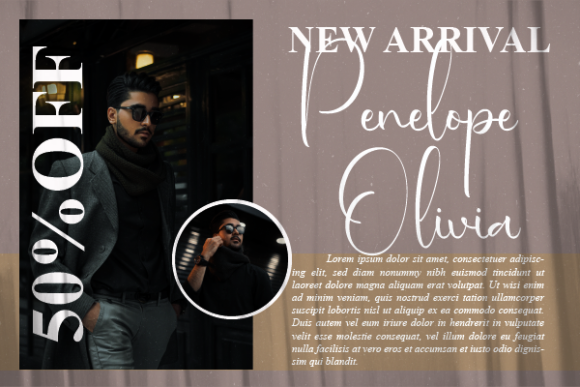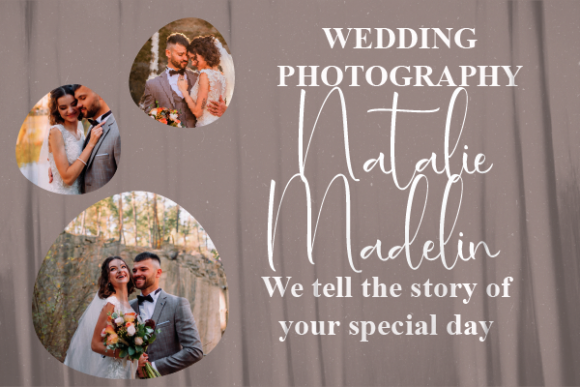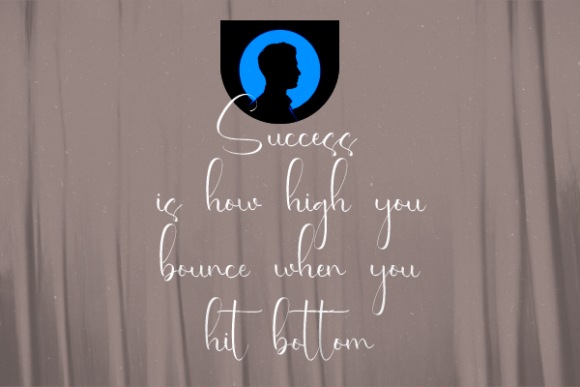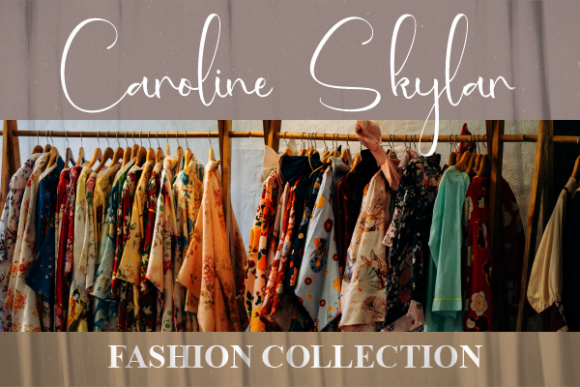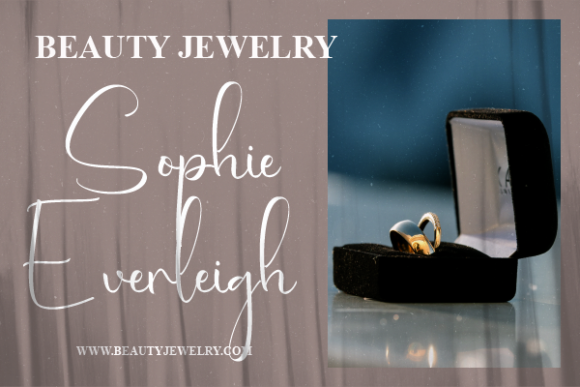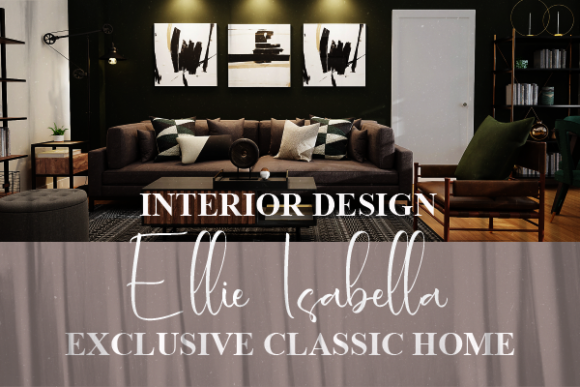
About Sabrina Dashwood Font
“Sabrina Dashwood” emerges as an elegant and dainty handwritten font, graced with an enchanting array of sweet and delicate swashes. This font’s originality exudes an irresistible charm, making it a perfect fit for a myriad of creative endeavors. From letterheads to titles, and from stationery to any crafty concept, its unique allure will captivate your imagination.
Visualize “Sabrina Dashwood” as a brush that paints with finesse and sophistication, each stroke meticulously crafted to create a visual symphony of elegance. Its delicate swashes and graceful characters elevate your projects, transforming them into visual gems that resonate with subtlety and refinement. As you infuse this font into your creations, you embark on a journey where your concepts evolve into captivating visual narratives.
Beyond its visual allure, “Sabrina Dashwood” encapsulates an essence of authenticity and creative expression. Its handwritten nature adds a personal touch, turning your designs into more than just visuals – they become expressions of artistry and delicate beauty.
“Sabrina Dashwood” stands as a versatile companion in your creative journey. Its adaptability ensures seamless harmony with various styles, themes, and intentions. Whether you’re crafting sophisticated letterheads, adorning titles with elegance, or embellishing your stationery with a touch of refinement, this font amplifies the resonance of your message.
In a world where design communicates through grace and subtlety, “Sabrina Dashwood” becomes your medium for crafting designs that evoke emotions and leave an indelible mark. Let its elegant swashes be the artistic flourishes that enhance your creations, infusing them with a touch of dainty charm. Embrace the allure of “Sabrina Dashwood” and watch as it transforms your projects into captivating showcases of artistic excellence, resonating deeply with all who engage with them.